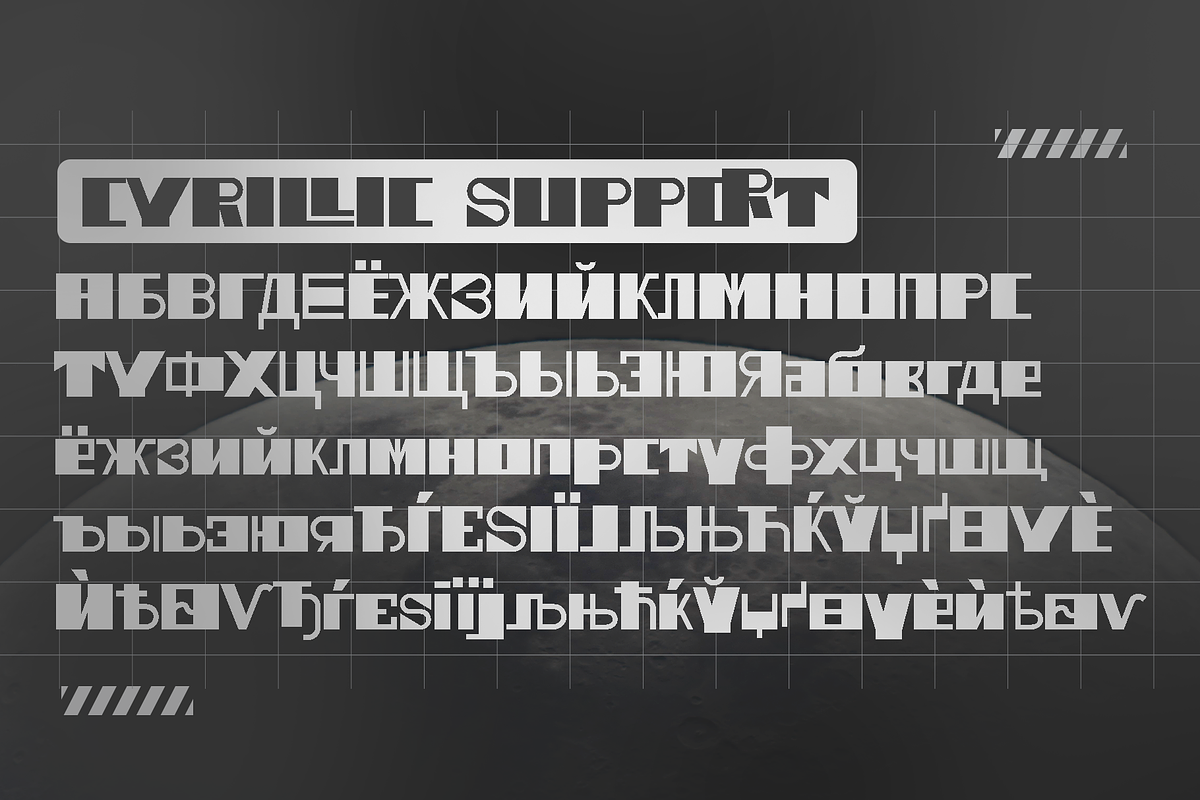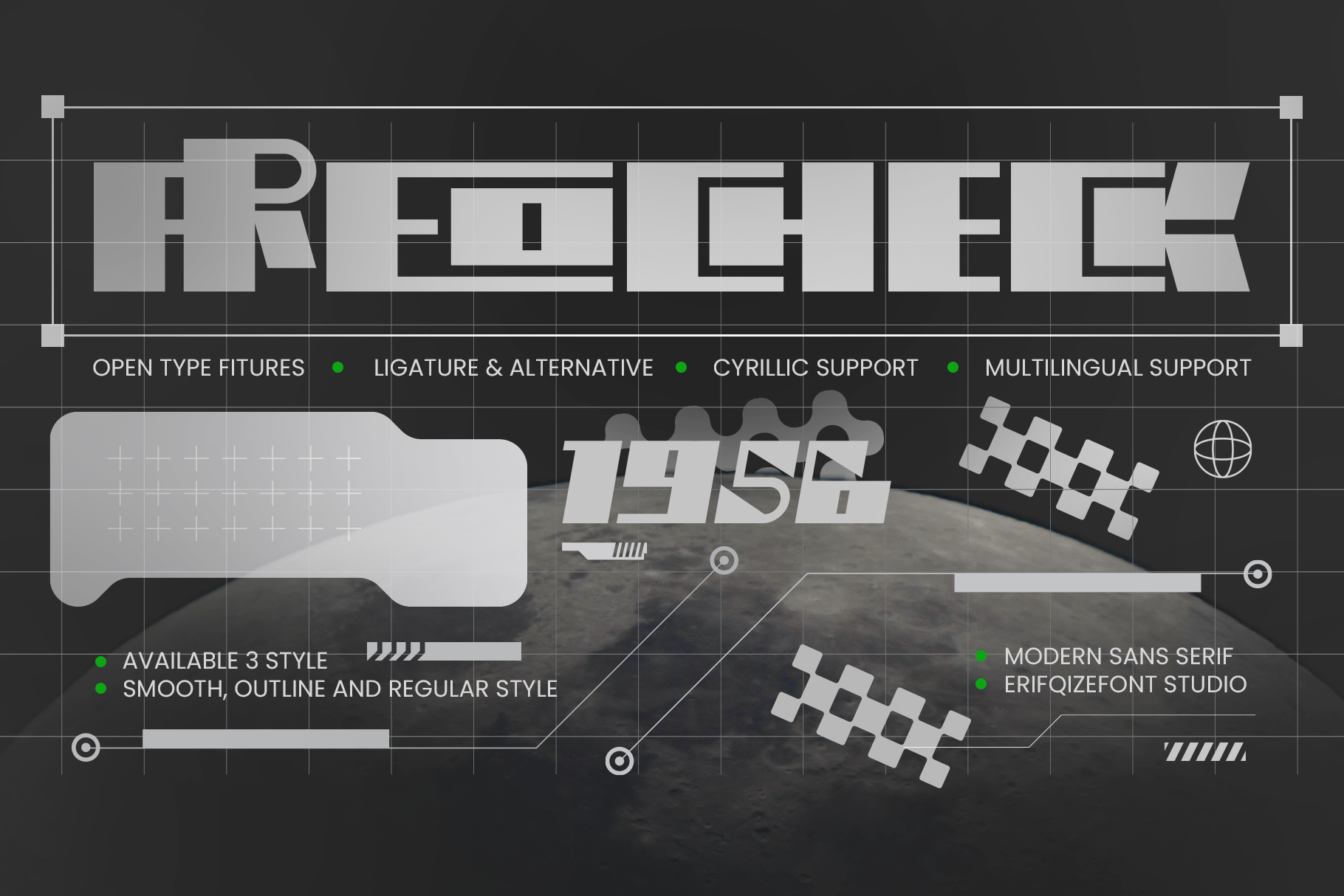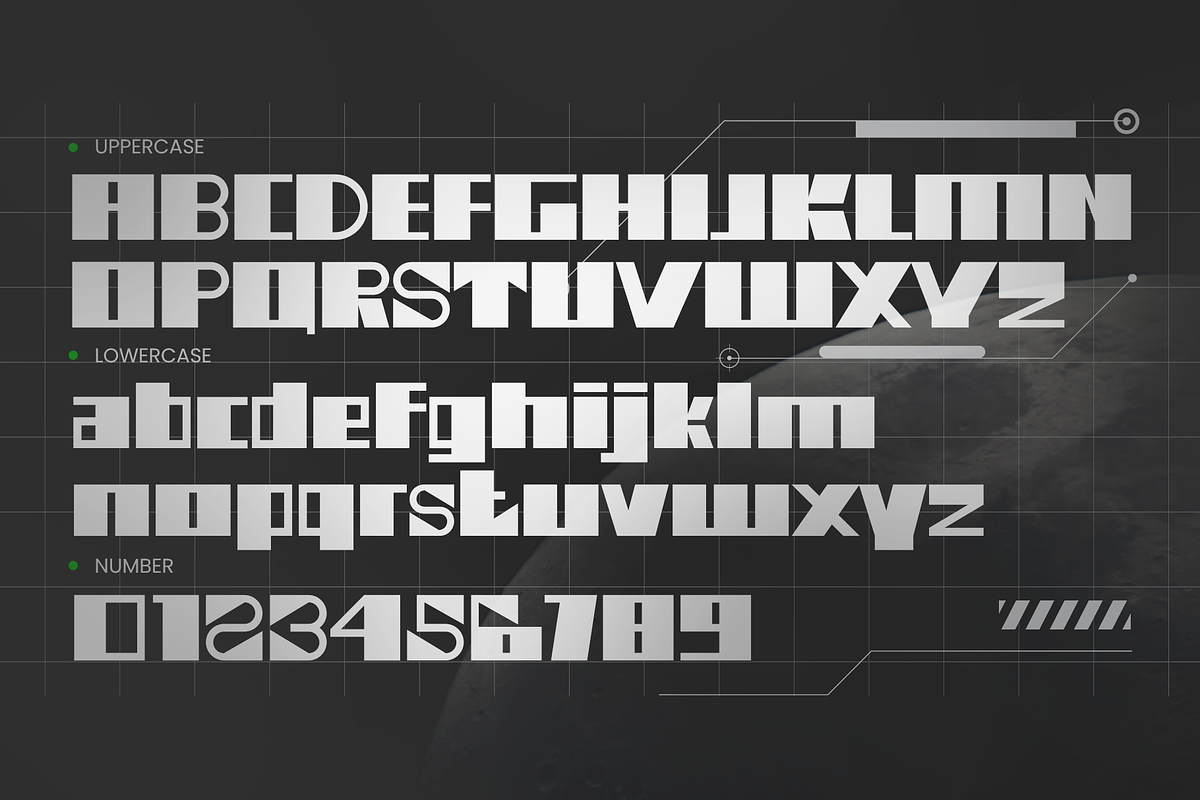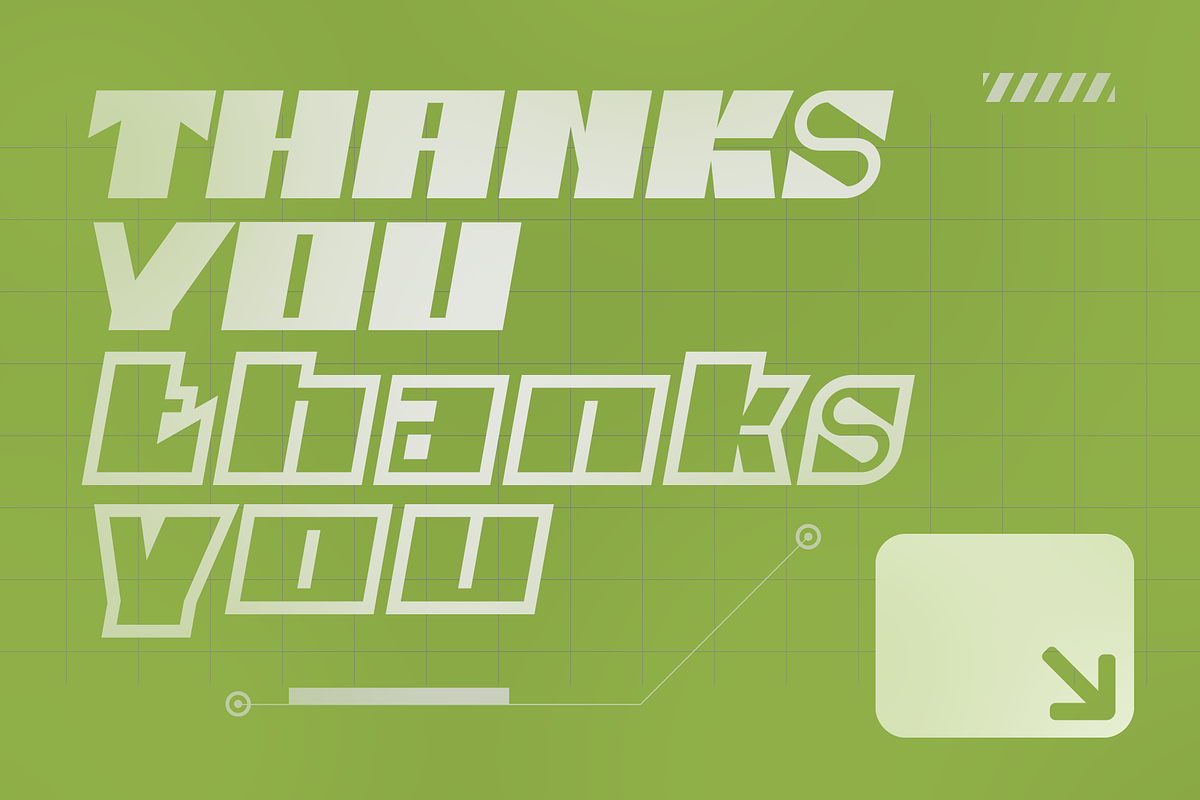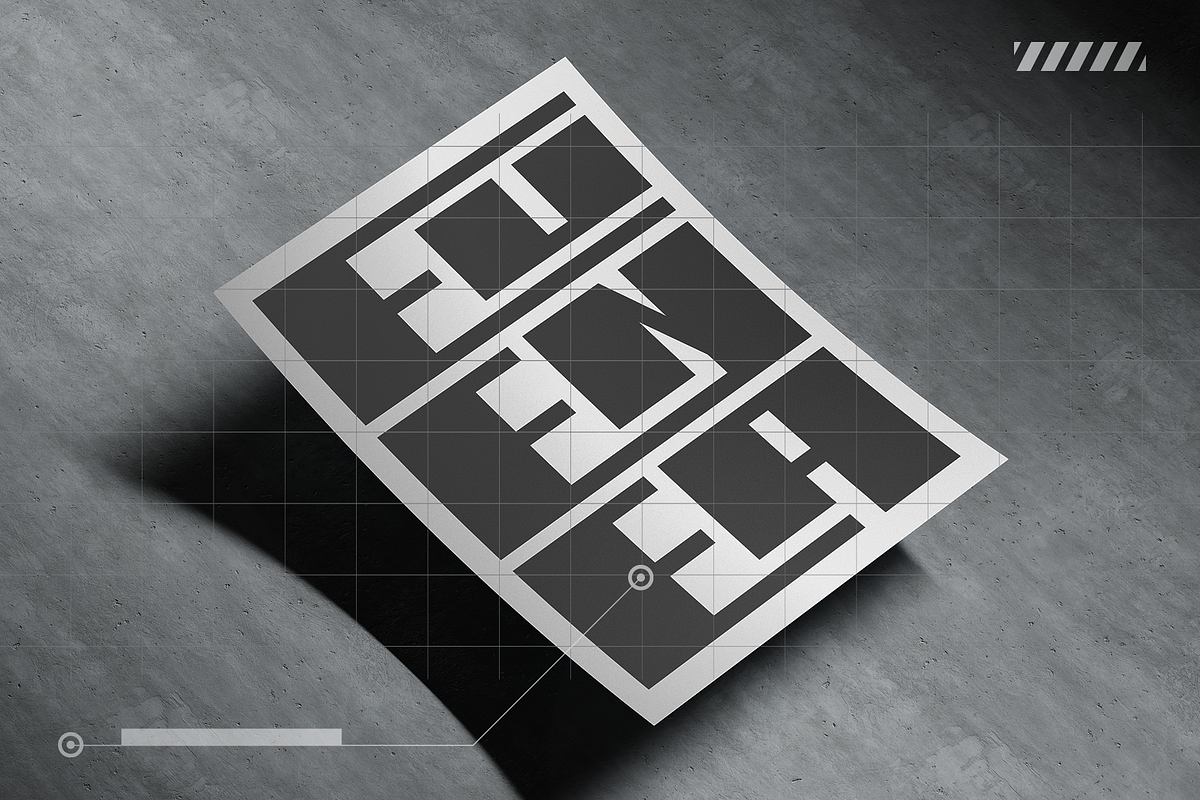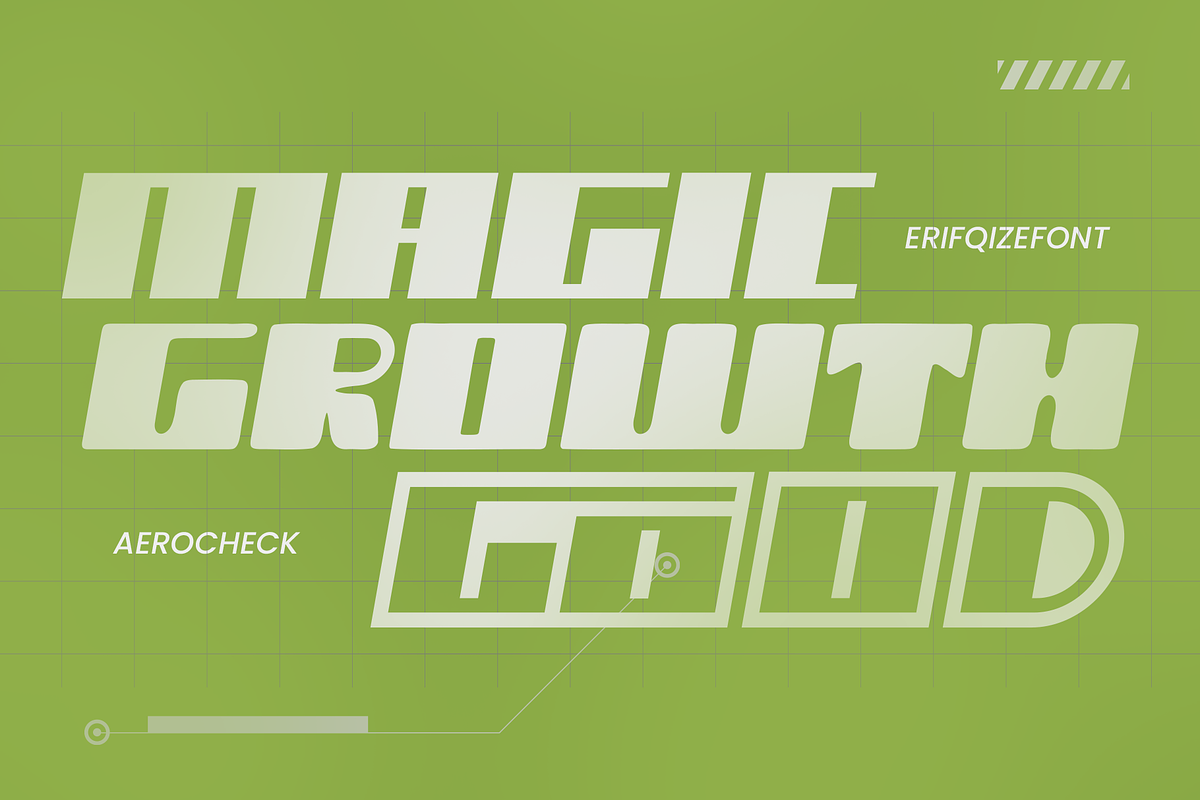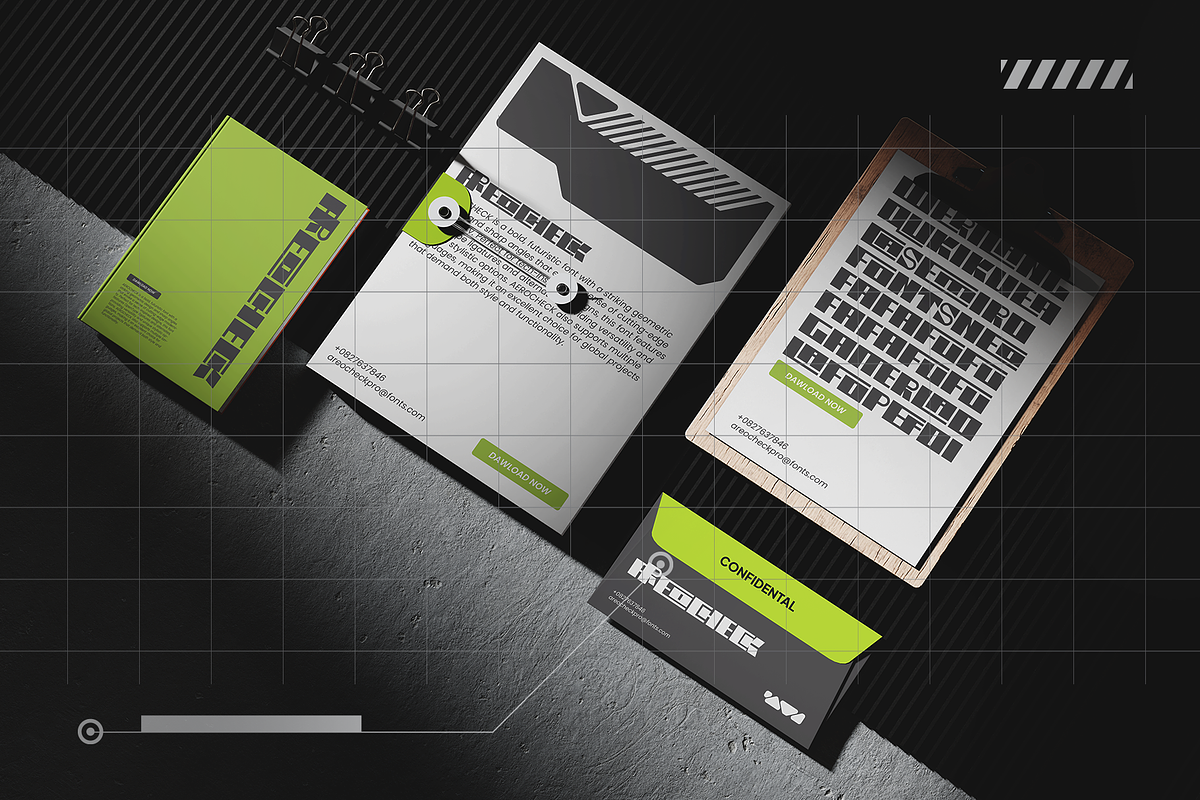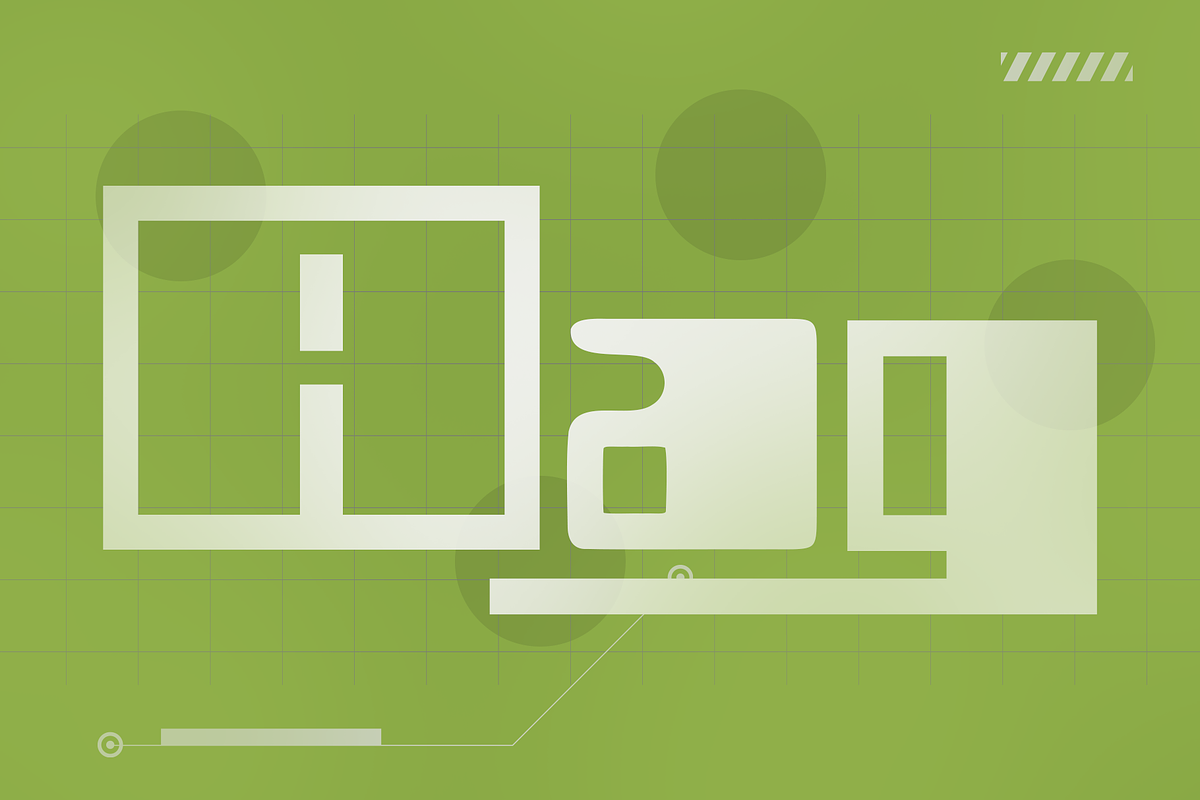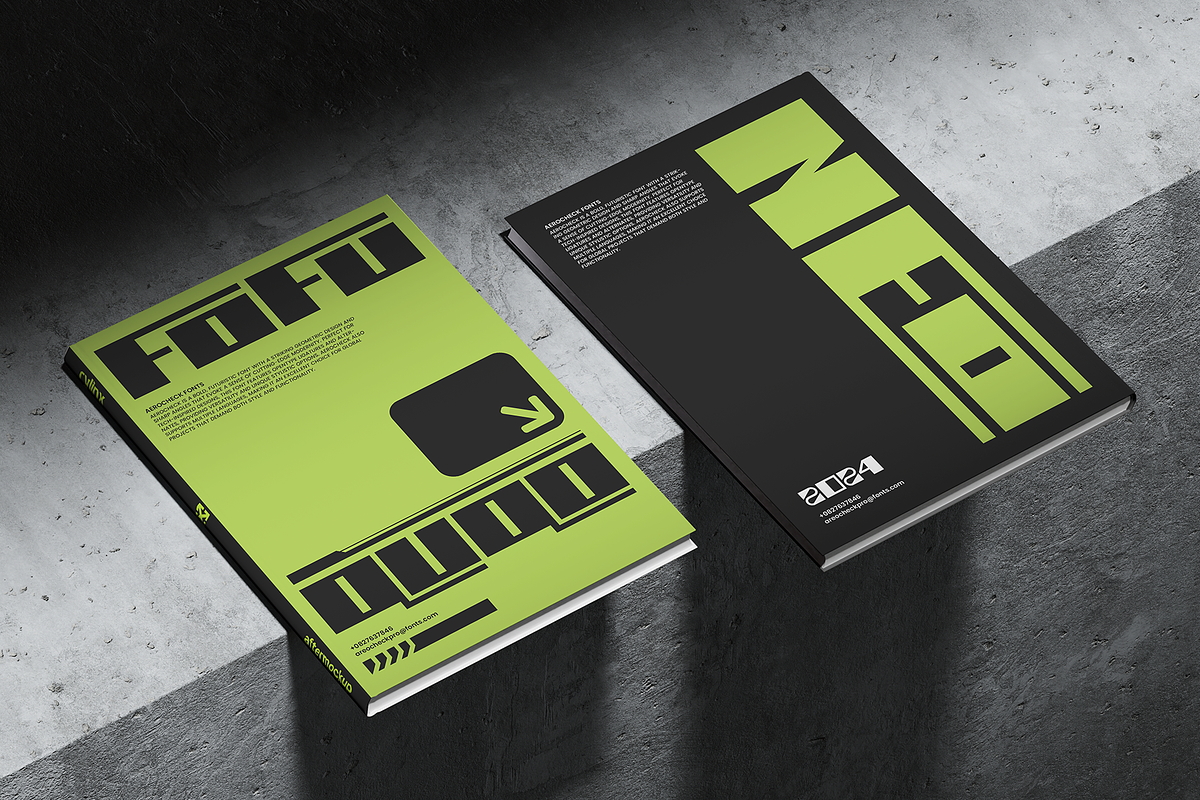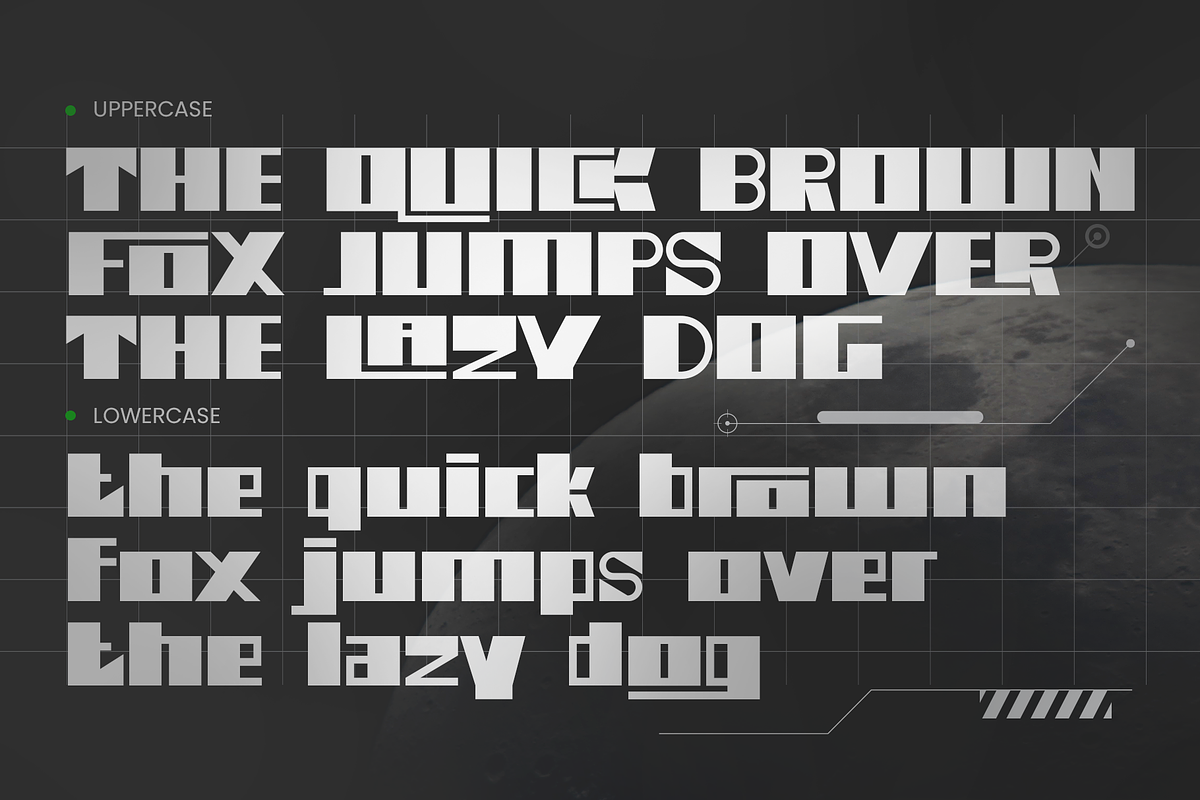
Areocheck Techno Fonts Three Styles
AREOCHECK is a bold and striking font with a strong futuristic vibe and a captivating geometric design. Its signature sharp angles convey a sense of modernity and sophistication, making it ideal for dynamic, high-energy projects, from branding and posters to digital interfaces. This font comes in three versatile styles: Regular, Smooth, and Outline, offering flexibility for different design needs and creative expressions. Designed with comprehensive OpenType features, AREOCHECK includes unique ligatures and alternates, giving users the creative freedom to craft typography that is both functional and artistic. With multilingual support, AREOCHECK is well-suited for global projects that demand strong visual appeal and versatility across various languages.